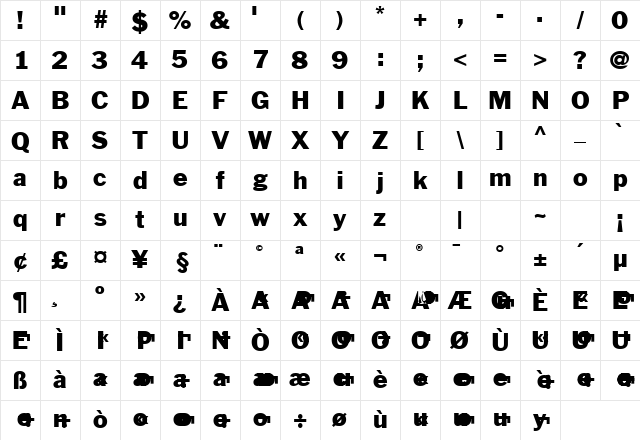
Winamp Regular
Designer: Tom Pepper
Design Context for Winamp
Winamp is a composed and adaptable typeface that performs quietly and consistently across a wide range of design contexts.